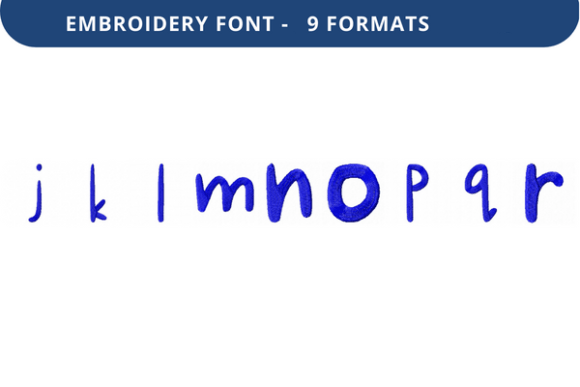
Short Quiz Font Lowercase J to R
When it comes to personalizing your embroidery projects, having the right font can make all the difference. The Short Quiz Font Lowercase J to R is a versatile and stylish choice that offers both aesthetic appeal and practical functionality. Whether you're creating custom gifts, branding materials, or decorative items, this font provides a unique way to add personality and flair to your designs.
What Is Short Quiz Font Lowercase J to R?
The Short Quiz Font Lowercase J to R is a specialized embroidery font designed for use in machine embroidery. It features a clean, modern look with distinct letterforms that are easy to read while still maintaining a creative edge. This font includes letters from J through R in lowercase, making it ideal for a wide range of applications.
Unlike generic fonts, this one is crafted with attention to detail, ensuring that each character maintains its shape and clarity even when scaled down or embroidered onto fabric. Its design is particularly well-suited for use on small surfaces, such as jewelry, patches, and personalized accessories.
Key Characteristics and Strengths
- Clean and Modern Design: The font’s minimalist style ensures that it looks great on a variety of fabrics and backgrounds.
- High-Quality Stitching: Each letter is optimized for embroidery, reducing the risk of distortion or poor stitch quality.
- Easy to Use: The font is user-friendly and compatible with most embroidery machines, making it accessible to both beginners and experienced crafters.
- Professional-Looking Results: Whether you're creating a custom product or a branded item, this font helps elevate the overall appearance of your work.
Practical Applications Across Different Environments
The versatility of the Short Quiz Font Lowercase J to R makes it suitable for use in various settings. Here are some real-world examples of how it can be applied:
Personal Projects
For hobbyists and DIY enthusiasts, this font is perfect for adding a personal touch to handmade items. You can use it to embroider names, dates, or meaningful quotes on t-shirts, tote bags, and more.
Professional Use
Professionals in marketing, branding, and design can benefit from using this font to create custom signage, promotional materials, and branded merchandise. Its clean and modern look aligns well with contemporary design trends.
Education and Training
Teachers and educators can incorporate this font into classroom materials, awards, or student projects. It adds a visual element that can help reinforce learning and engagement.
Commercial Products
Business owners and entrepreneurs can use this font to personalize products such as apparel, home décor, and accessories. It helps in building brand identity and creating a cohesive visual language.
Benefits of Using Short Quiz Font Lowercase J to R
Choosing the Short Quiz Font Lowercase J to R offers several advantages:
Improved Usability: The font’s clear letterforms ensure that text remains legible at any size, which is crucial for embroidery projects.
Better Communication: A well-designed font can significantly impact how information is perceived, making it easier for audiences to engage with your content.
Increased Branding Impact: Consistent use of this font across different products and platforms helps build recognition and trust among your audience.
Considerations When Selecting and Using the Font
Before implementing the Short Quiz Font Lowercase J to R, consider the following factors:
- Compatibility: Ensure that your embroidery machine supports the file formats provided with the font.
- Scalability: Test the font at different sizes to confirm that it maintains its clarity and structure.
- Design Context: Choose the font based on the intended use and audience. Its modern style may not be suitable for all design contexts.
- File Management: Keep track of your files to avoid confusion, especially if you're working on multiple projects.
- Quality Assurance: Always preview your embroidery before finalizing to ensure that the results meet your expectations.
Final Thoughts
The Short Quiz Font Lowercase J to R is more than just a tool—it's an enhancement to your creative process. By offering a blend of style, functionality, and adaptability, it empowers users to bring their ideas to life with precision and confidence. Whether you're a professional designer or a passionate hobbyist, this font is a valuable addition to your toolkit.